Nouvelle Noire
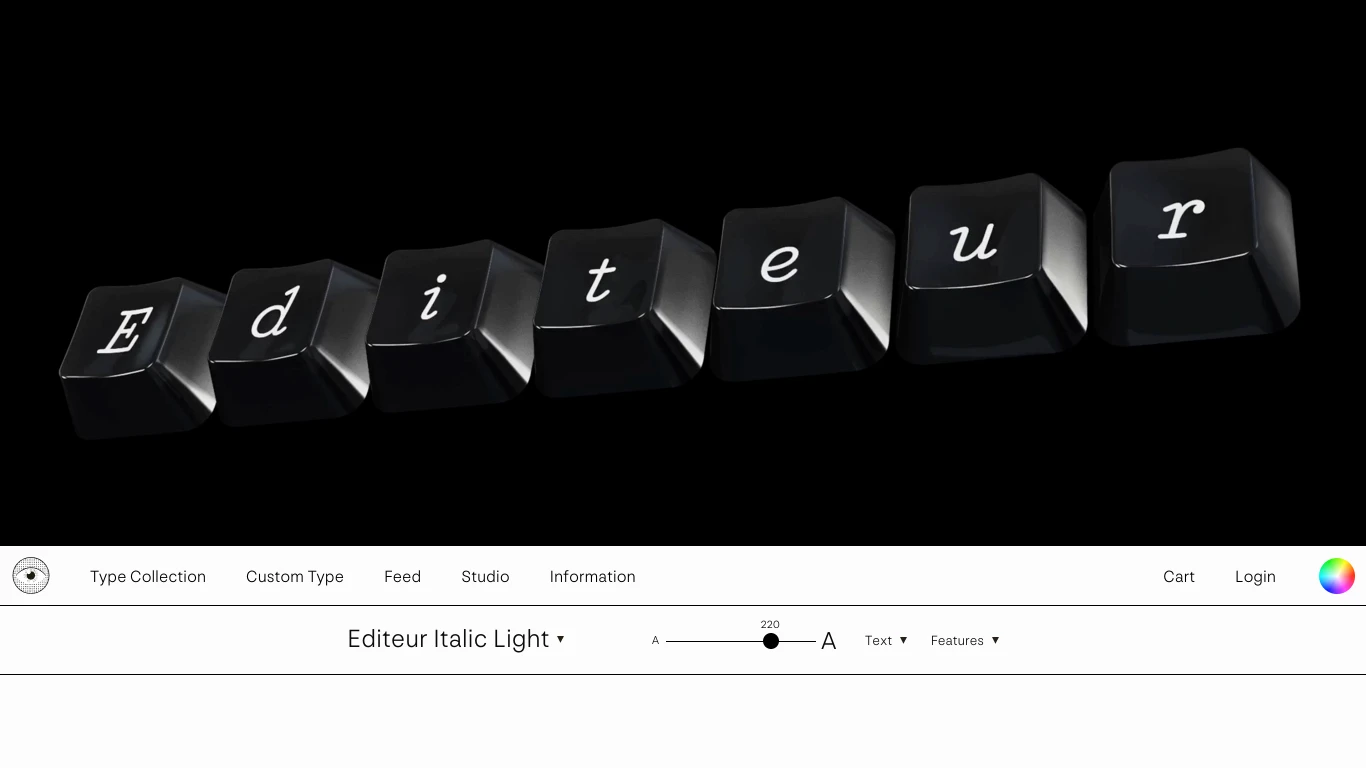
Switzerland
2011
Nouvelle Noire is a Swiss type foundry and design studio based in Zurich, founded in 2011 by Anton Studer and Clovis Vallois. The studio is acclaimed for its high-quality typefaces that blend historical awareness with contemporary design, suitable for both print and digital media. Their notable typefaces include NN Nouvelle Grotesk, NN Pivot Grotesk, NN Swinton, NN Arosa (by Edgar Walthert), and NN Didot Modern (in collaboration with Arnaud Chemin). Their diverse client list features Theater Basel, Museums of History New South Wales, Kuehne + Nagel, Bühnen Bern, Raumgleiter, Museum für Gestaltung Zürich, Matterhorn Zermatt Bergbahnen, Edelweiss, and Maurice de Mauriac.